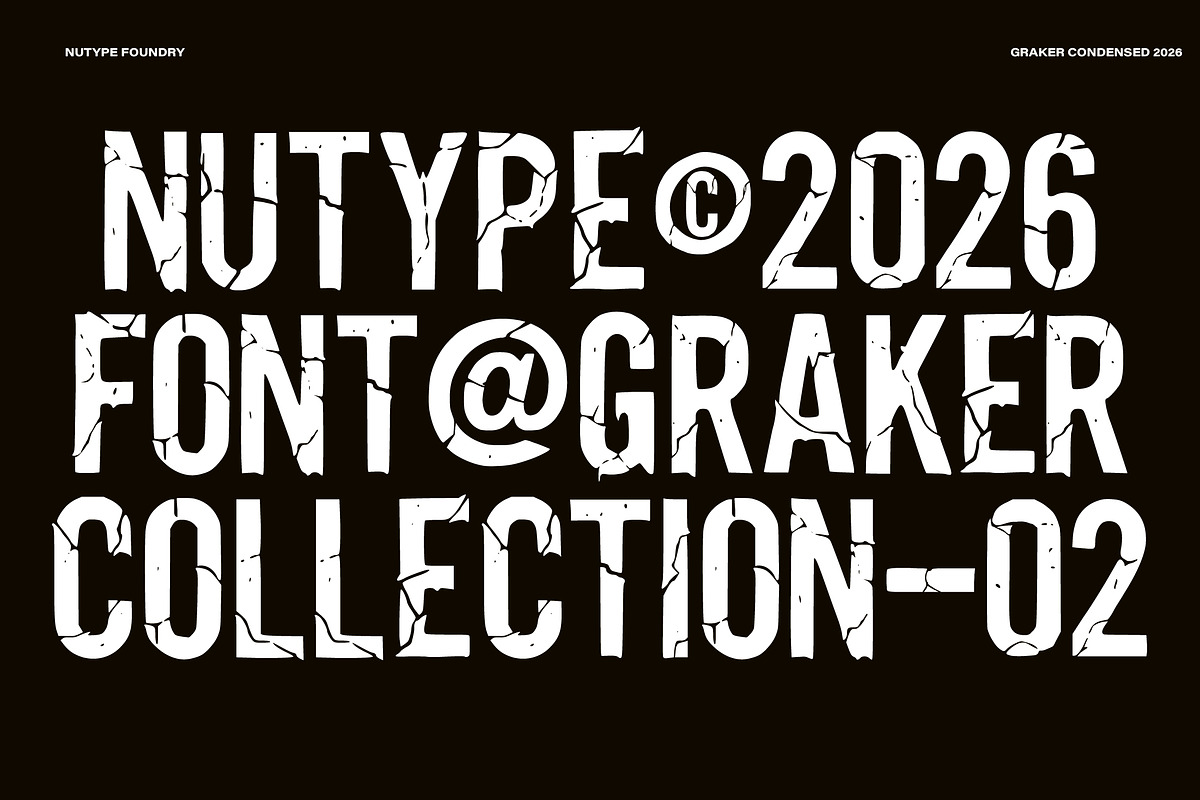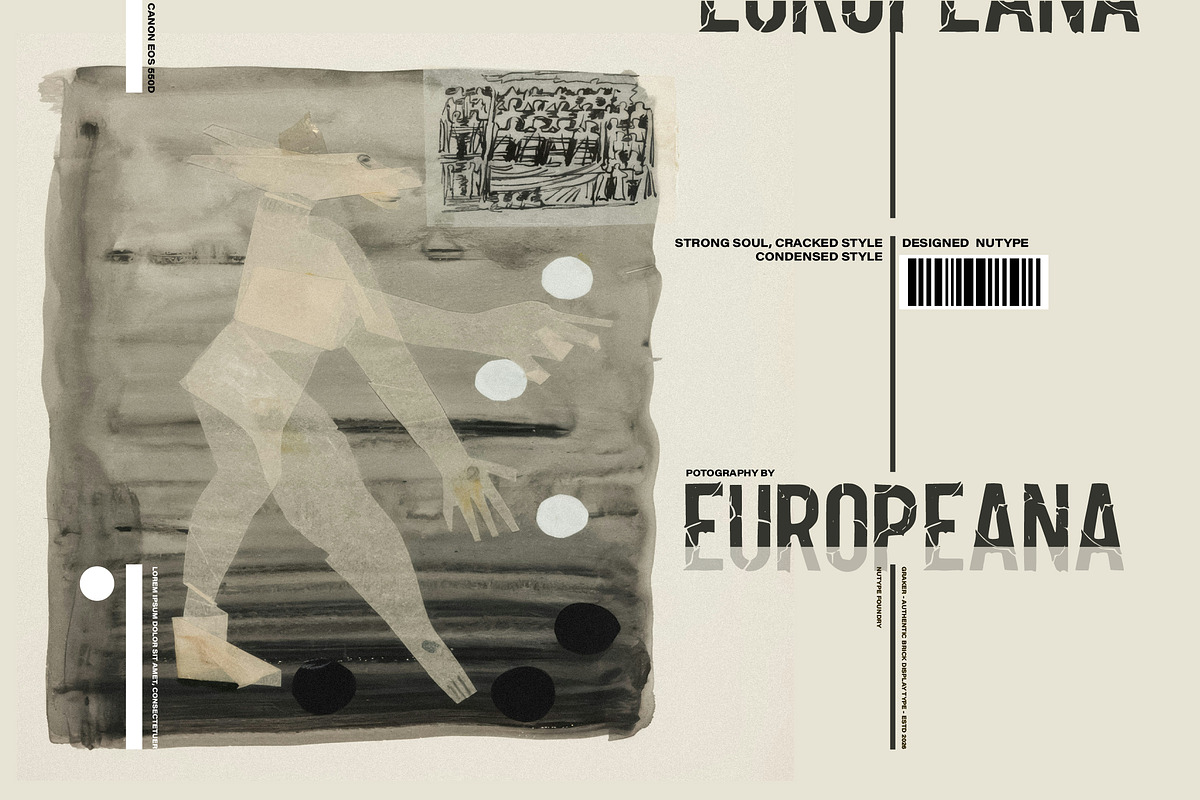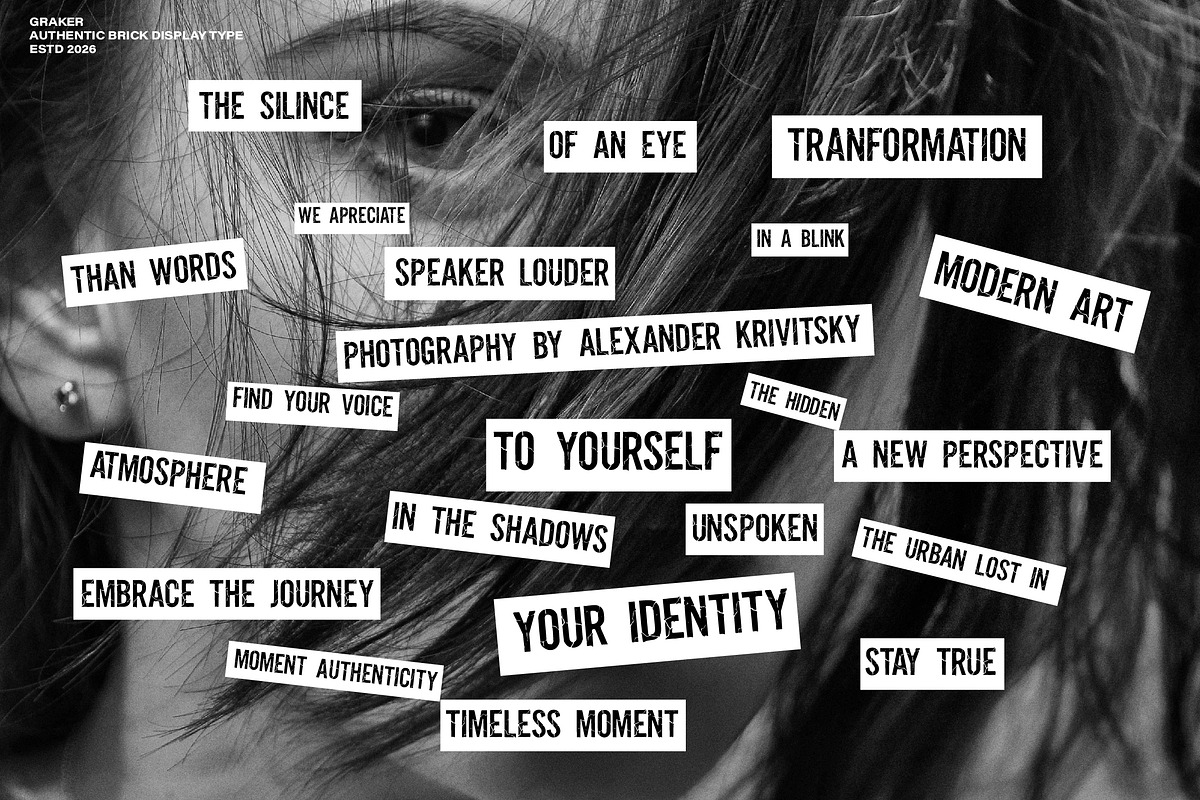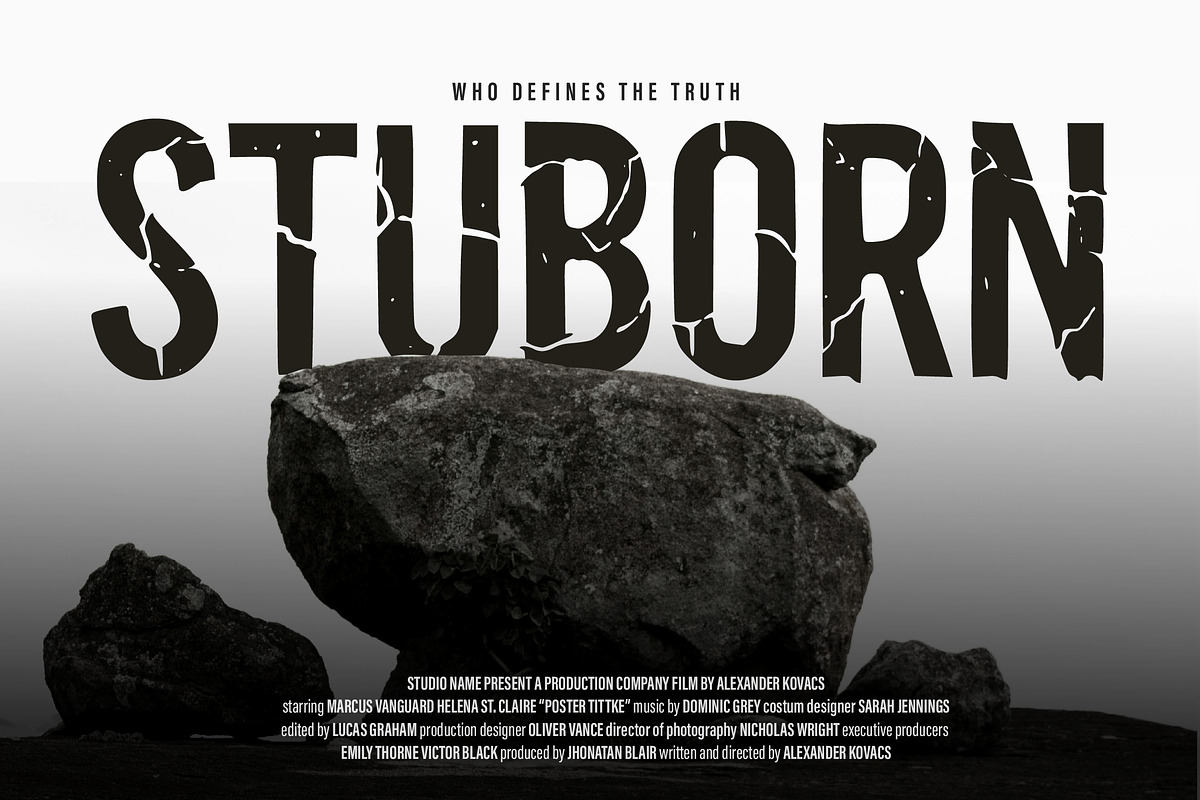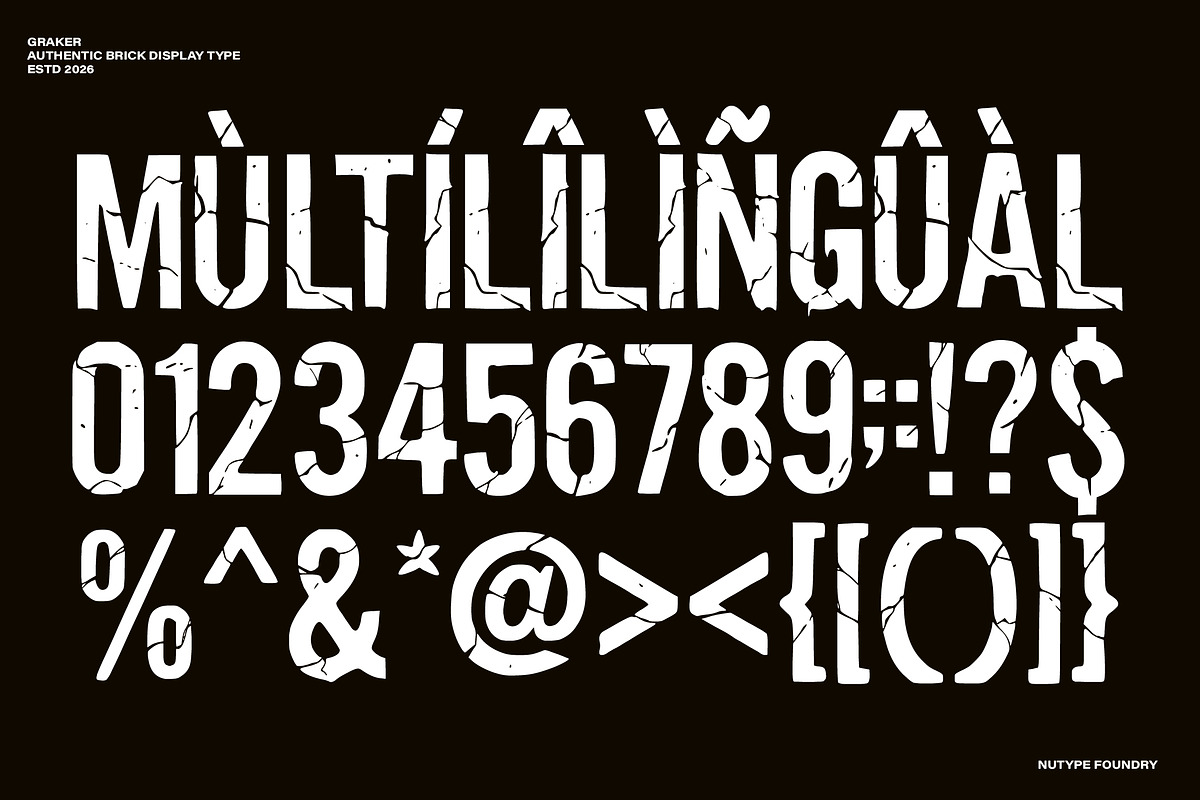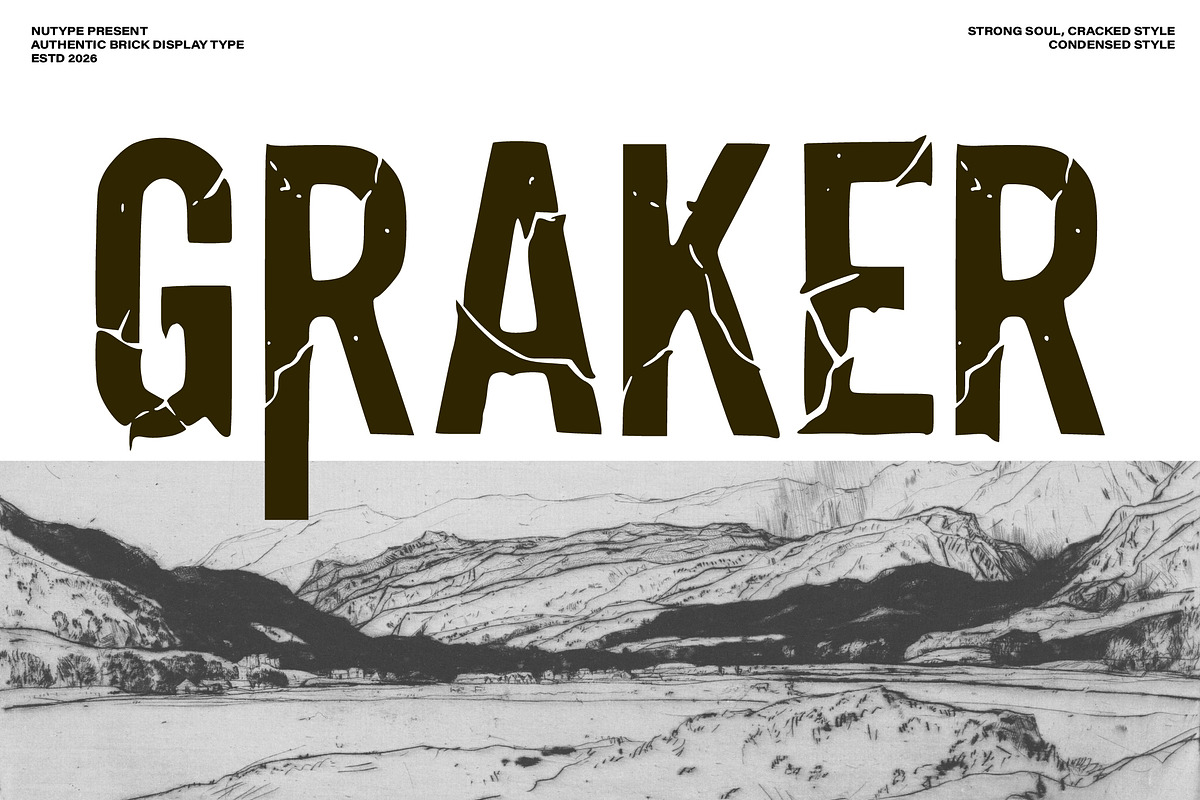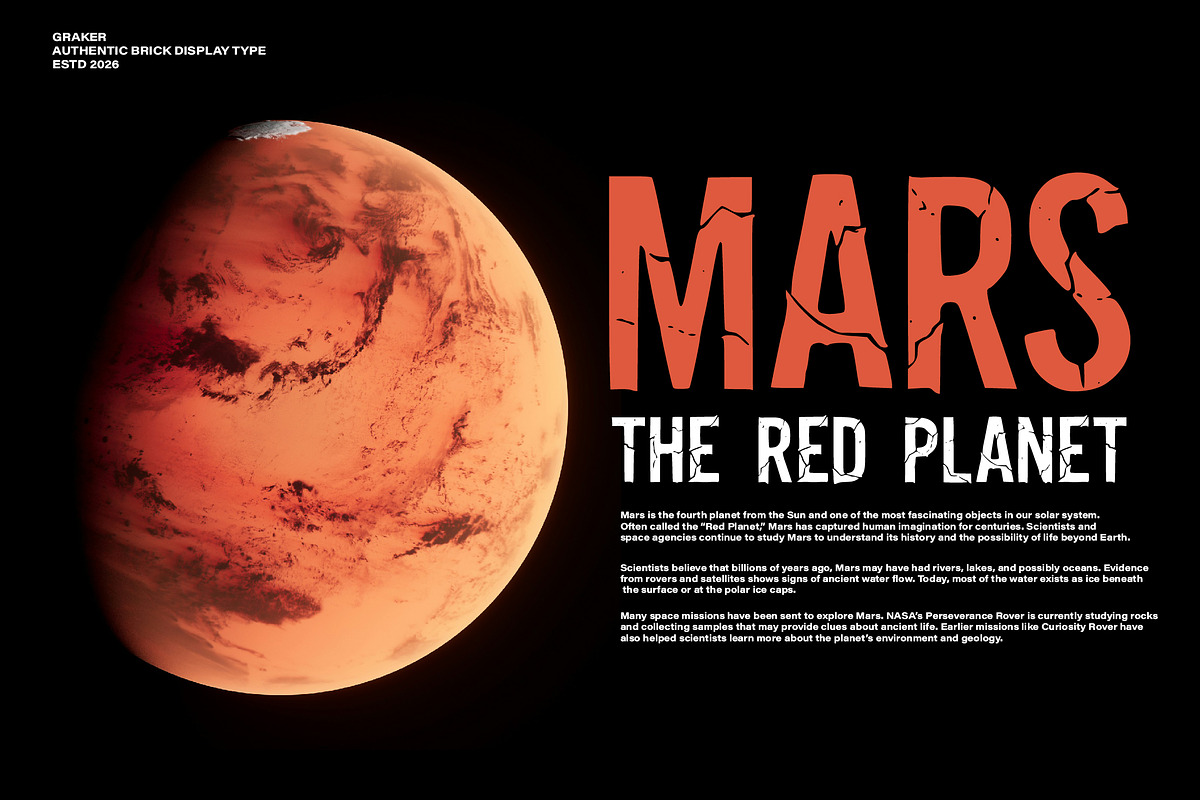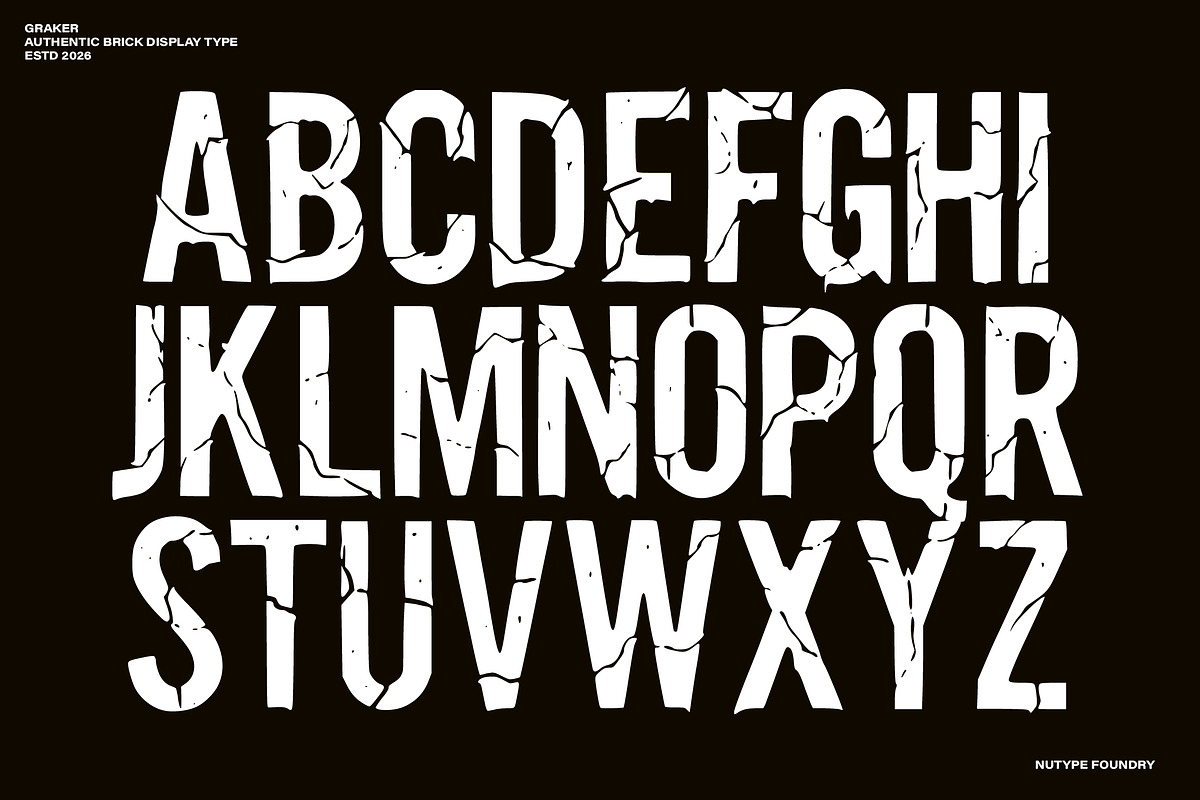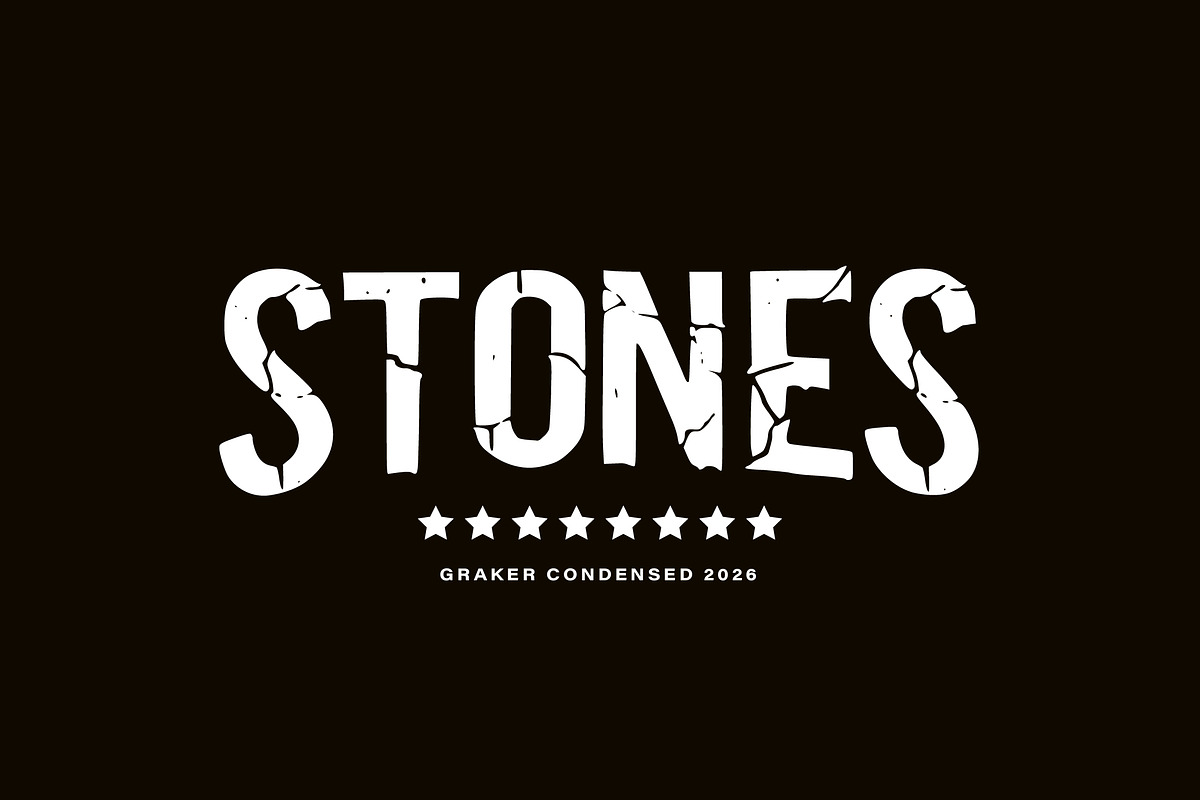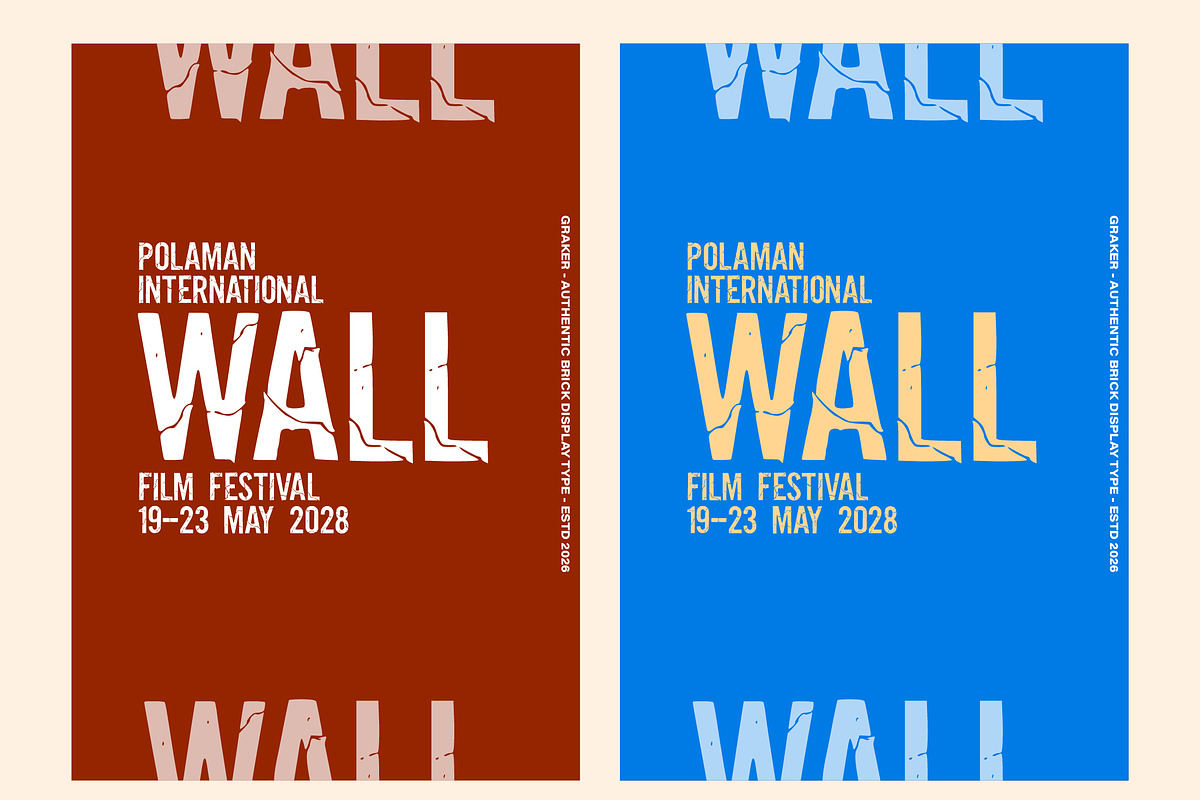
Graker - Condensed Display Type
Graker is a bold display typeface inspired by cracked brick textures and rugged industrial aesthetics. Designed with strong uppercase characters and natural fracture details, this font delivers a powerful, raw, and masculine visual impact.
Each letter features authentic crack effects that create a realistic broken-stone appearance while maintaining excellent readability. Perfect for projects that require a strong, tough, and dramatic typographic presence.
- All Caps Character Set (A–Z)
- Authentic Crack Texture Detail
- Strong & Bold Letterforms
- High Readability for Display Use
- Movie Posters
- Horror & Thriller Designs
- Gaming Titles
- Streetwear Branding
- Sports Graphics
- YouTube Thumbnails
- Album Covers
- Logo & Headline Design
Graker is the perfect choice when you need typography that feels solid, broken, and powerfully expressive.